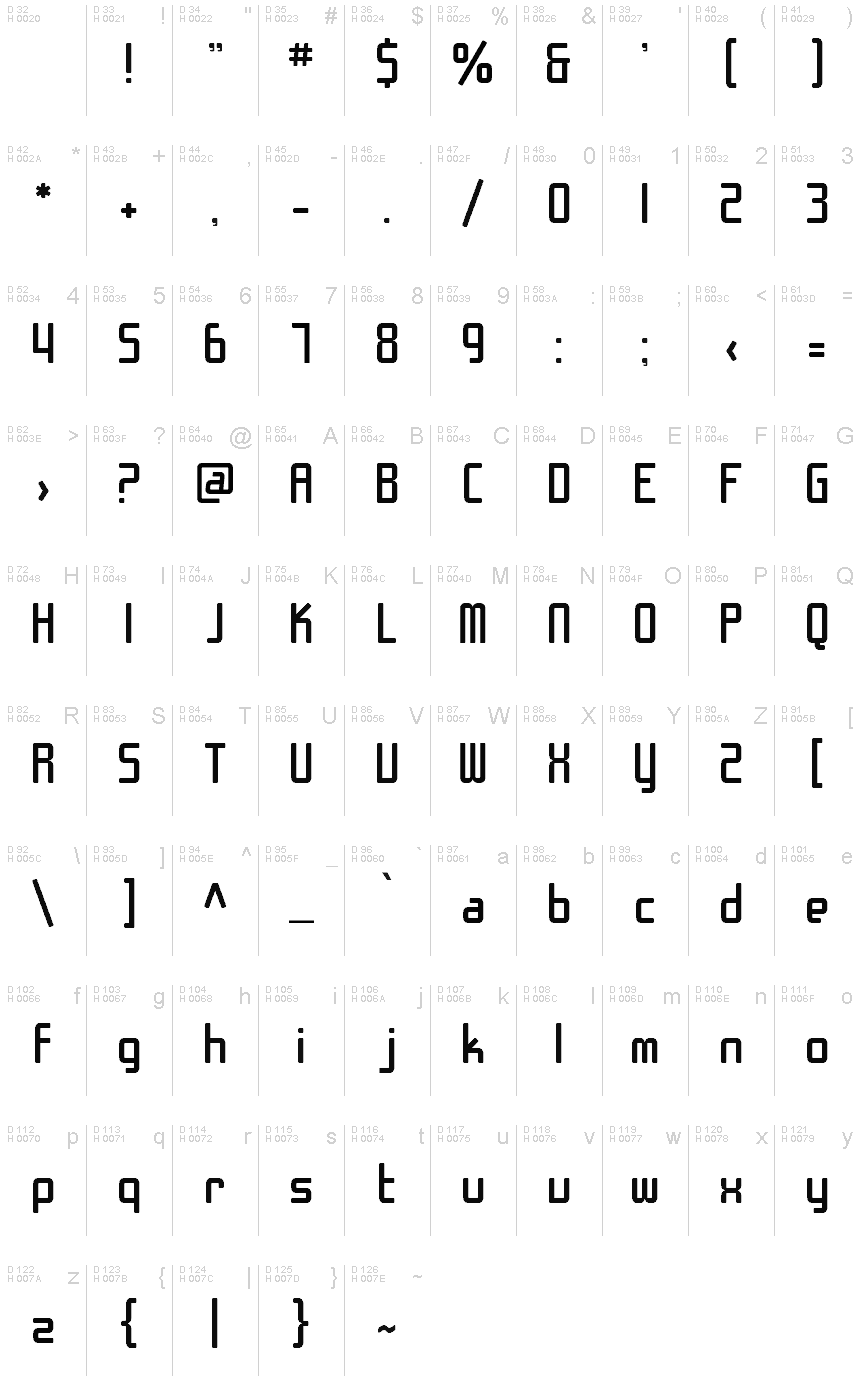
SF Chrome Fenders
SF Chrome Fenders, a masterpiece from ShyFonts Type Foundry, emerges as a distinct display typeface that commands attention. Its techno style exudes a sleek and modern aesthetic, perfect for projects that require a touch of futuristic elegance. The semi-light weight of the font introduces an air of sophistication without overwhelming the senses, while its condensed width ensures it makes a strong impact even in limited spaces.
The streamlined look of SF Chrome Fenders is ideal for tech startups' branding, electronic music event posters, or any design that desires to convey innovation and style. With its clean lines and contemporary flair, this font not only stands out visually but also promises versatility across various creative endeavors. Whether gracing the cover of a cutting-edge magazine or emblazoned on digital interfaces, SF Chrome Fenders is set to leave an indelible mark on your audience's visual experience.